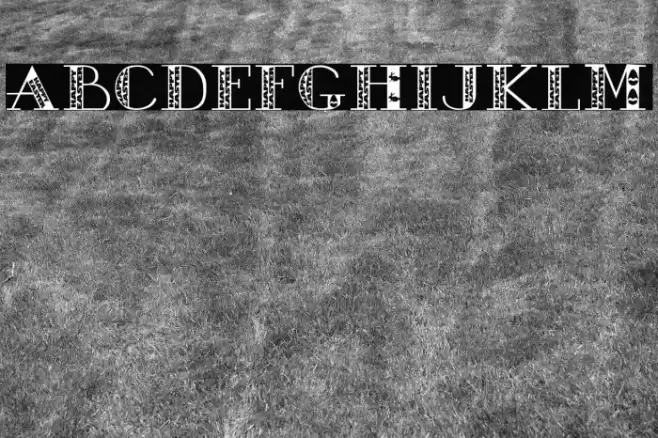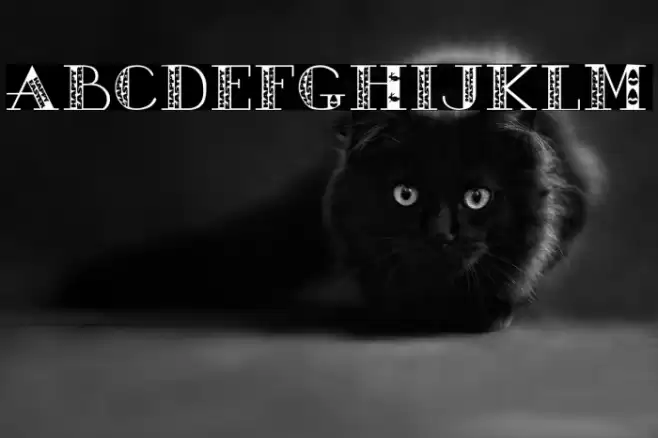
Happy Easter Font
Happy Easter Description
This decorative font features a playful and festive design, incorporating Easter-themed elements such as eggs and bunnies within the characters. The uppercase letters are bold and ornate, with intricate patterns that add a whimsical touch. The lowercase letters maintain a similar style, ensuring consistency throughout the typeface. The numbers and special characters also include thematic decorations, making this font ideal for holiday-specific designs. Its unique style captures attention and adds a cheerful, celebratory vibe to any project.
A decorative, Easter-themed font with playful elements and intricate patterns from Cartoon fonts.
- Font: Happy Easter
- Proposed Projects: Ideal for Easter cards, festive banners, themed invitations, and holiday marketing materials.
- Use Case: Headlines, Logos, Invitations